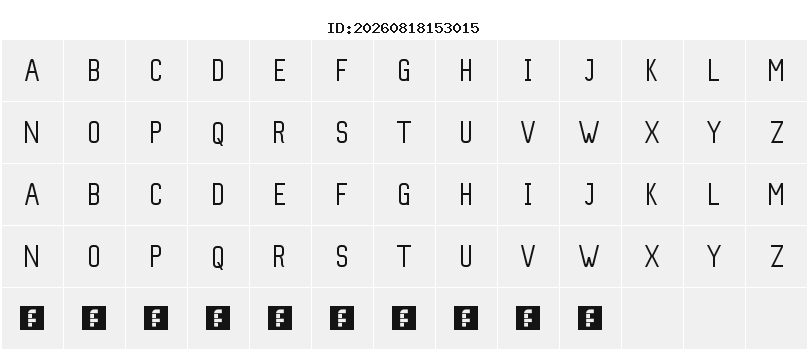
• Font Name: Slim
• Font ID: FontStruct Slim
• Full Font Name: Slim Regular
• PostScript Name: Slim
• Character Count: 53
• Designer: Aquaflame
• Description: ‚ÄúSlim‚Äù was built with FontStruct
About Slim.ttf
Slim.ttf is a modern, elegant sans-serif font designed for ultimate readability and visual harmony. Perfect for branding, headlines, web design, and print materials.